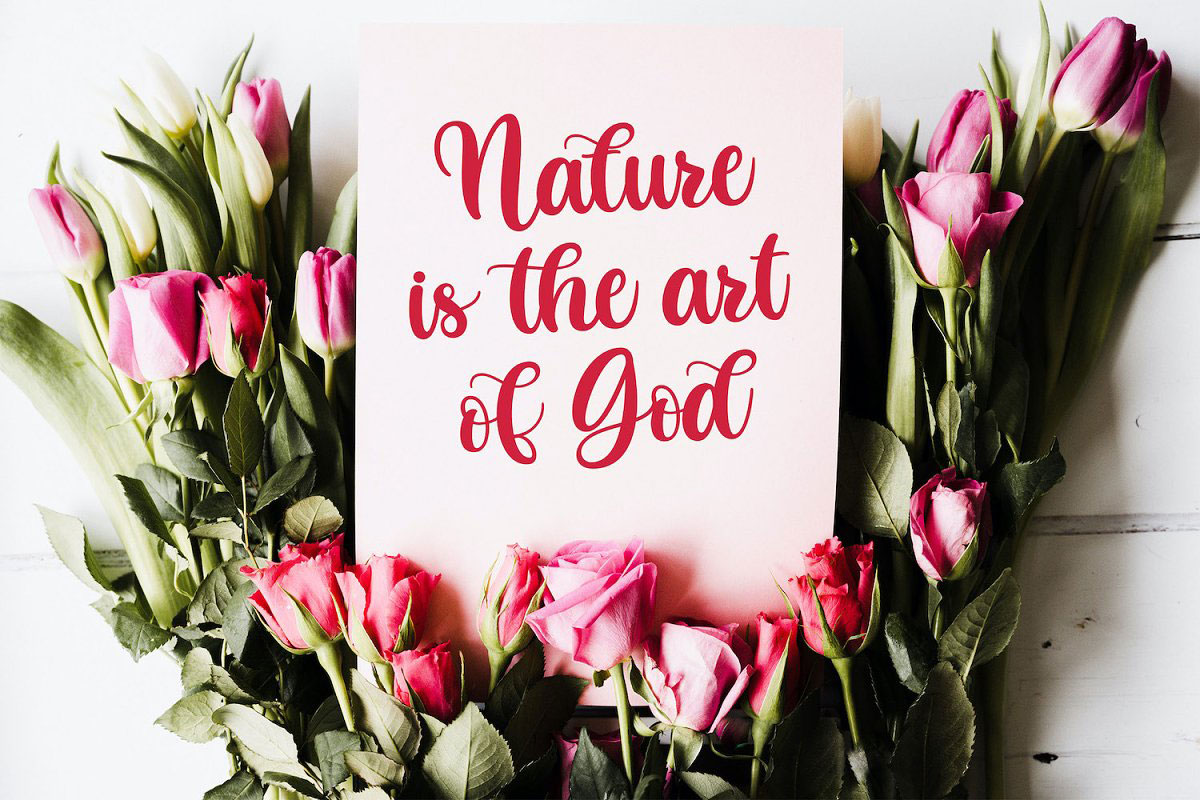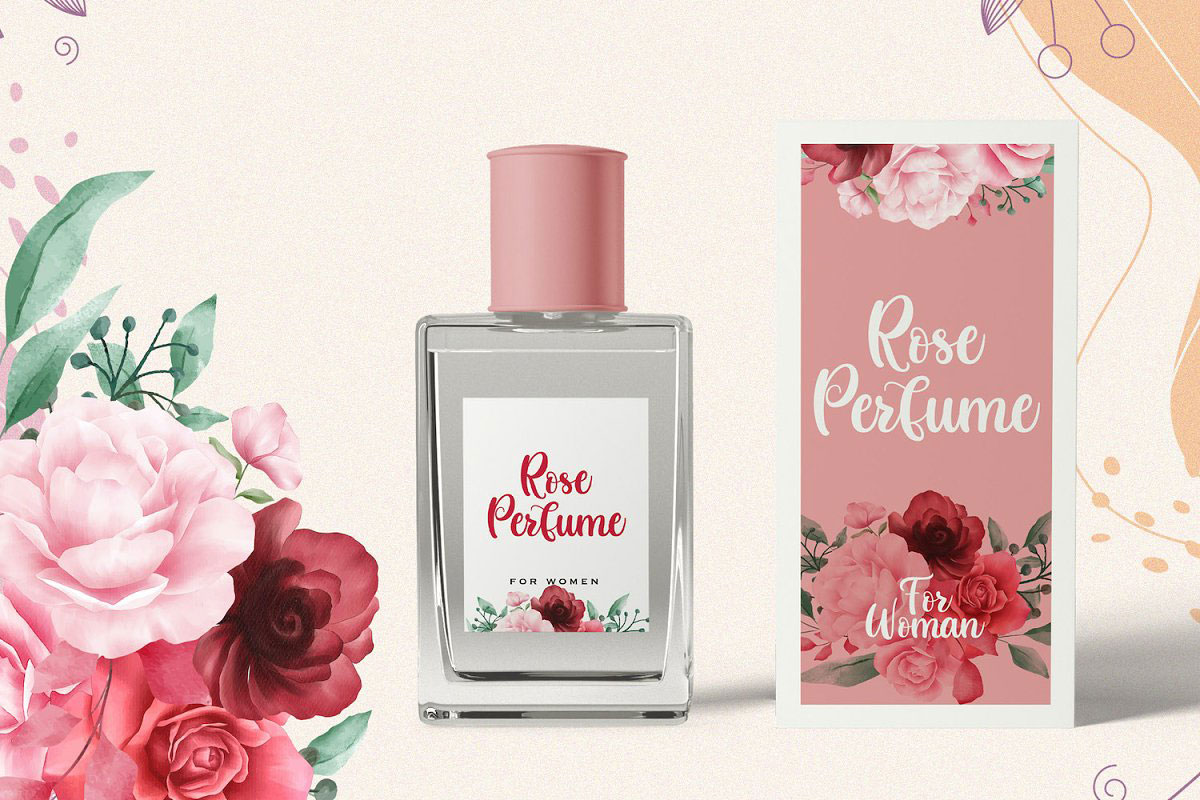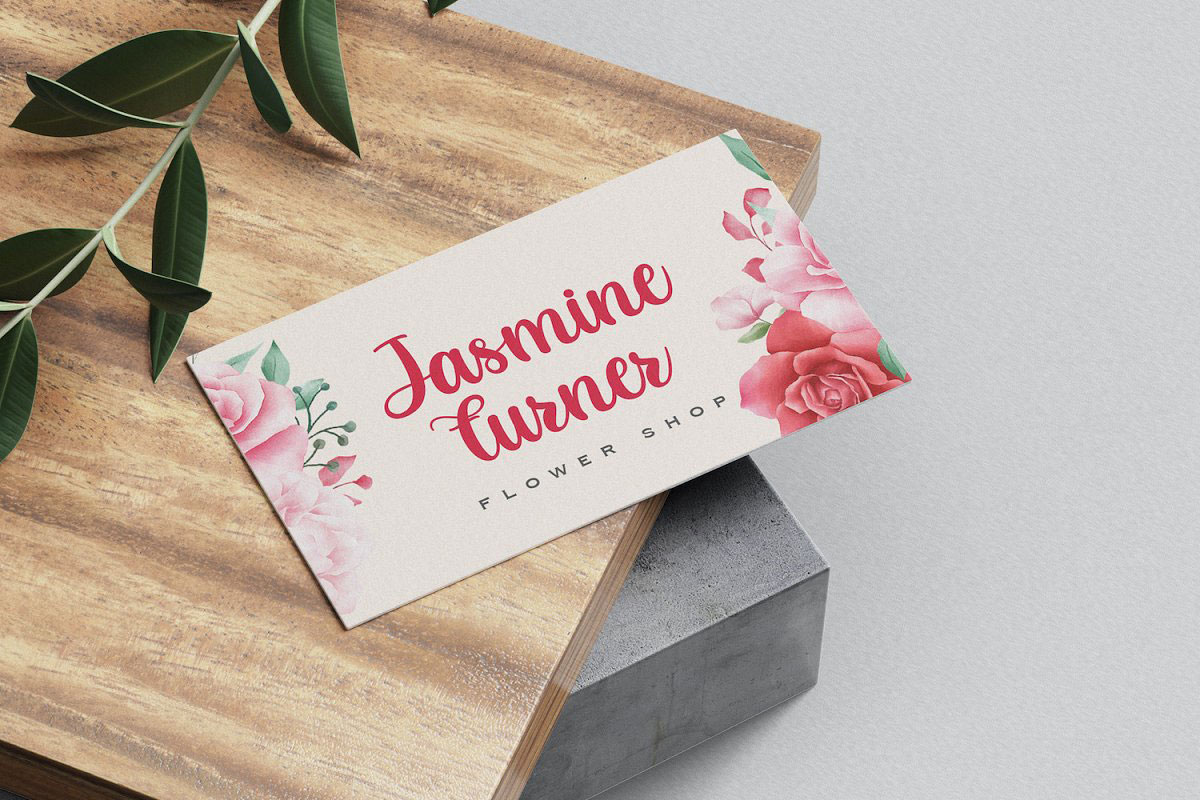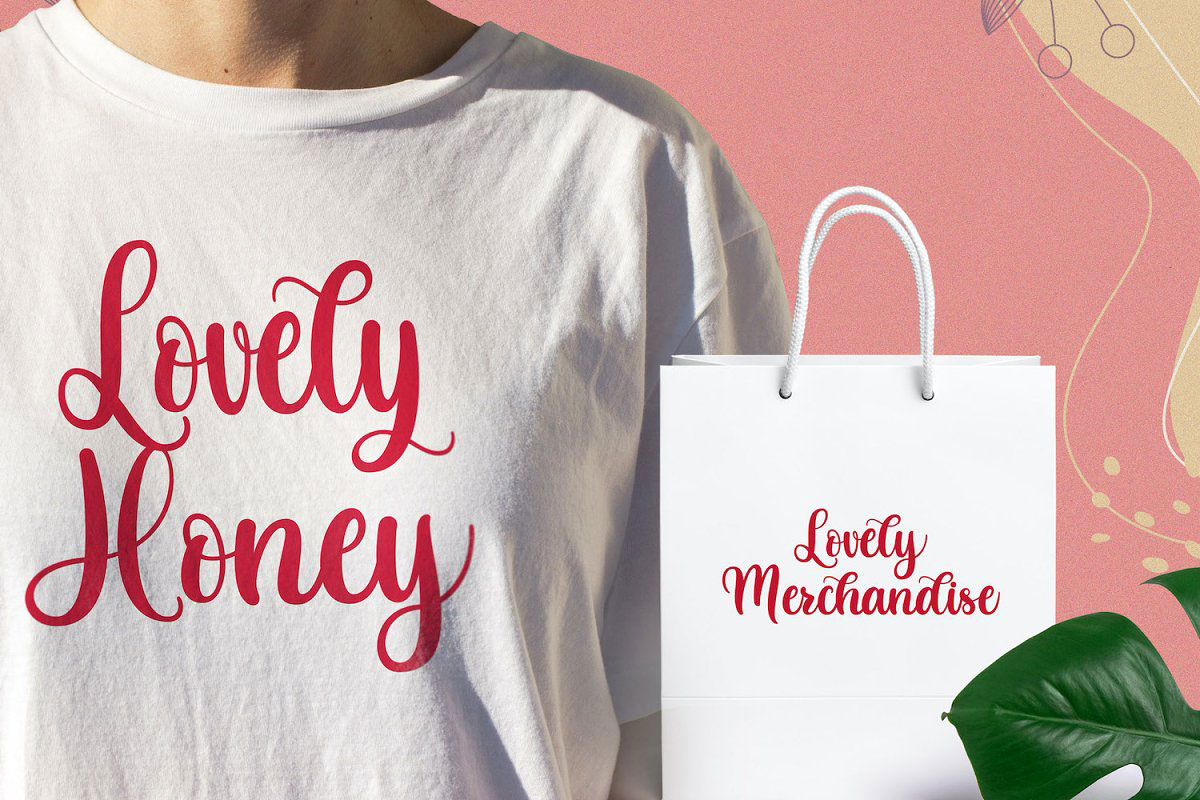
Butterfly Lovely Calligraphy Font 5209535
Free Download Creativemarket – Butterfly Lovely Calligraphy Font 5209535 with high speed direct link. Batherfly feels equally charming and elegant. It looks stunning on wedding invitations, thank you cards, quotes, greeting cards, logos, business cards and every other design which needs a handwritten touch.
This font is PUA encoded which means you can access all of the glyphs and swashes with ease! It features a varying baseline, smooth lines, gorgeous glyphs and stunning alternates.
• Stylistic Alternates
• Ligatures
• Uppercase and Lowercase letters
• Numbering and Punctuations